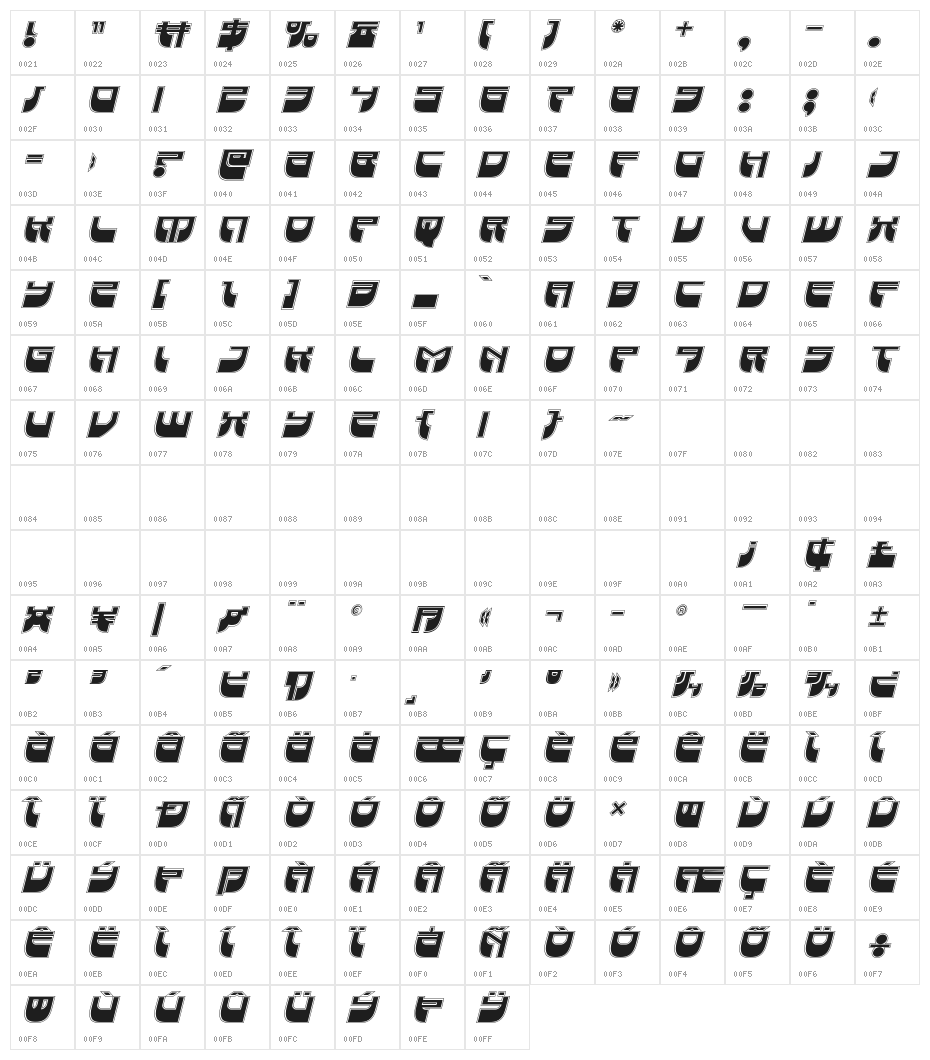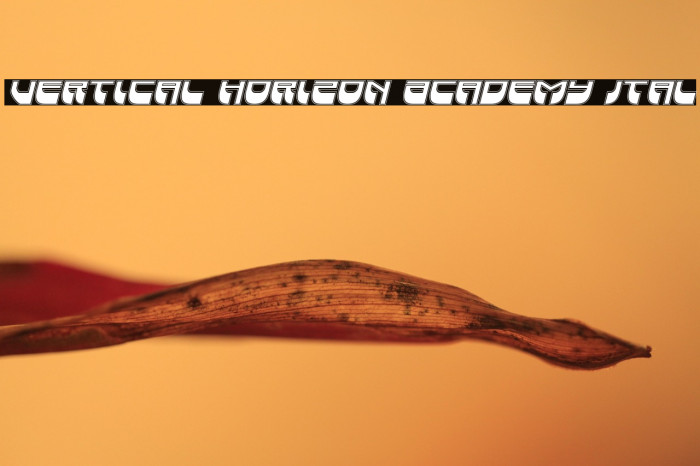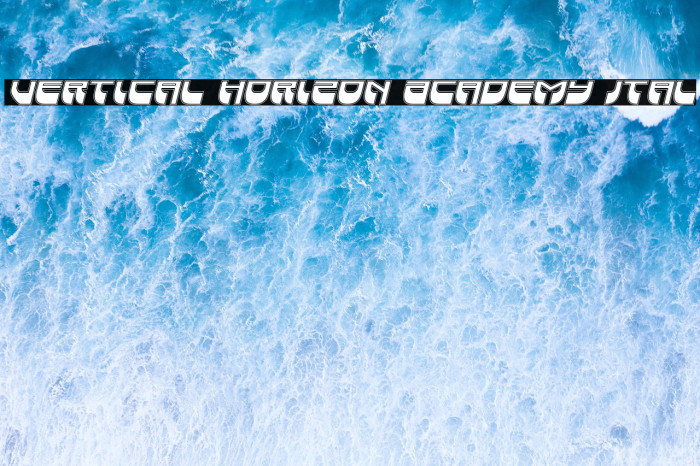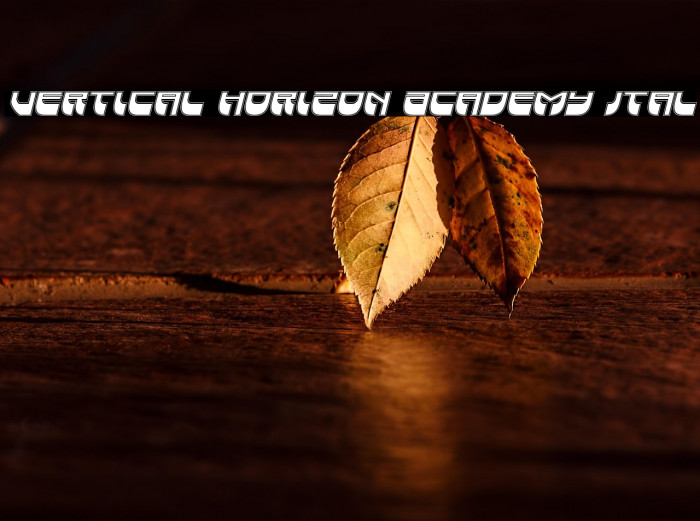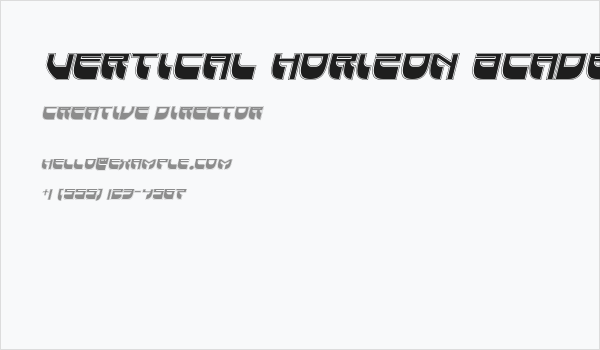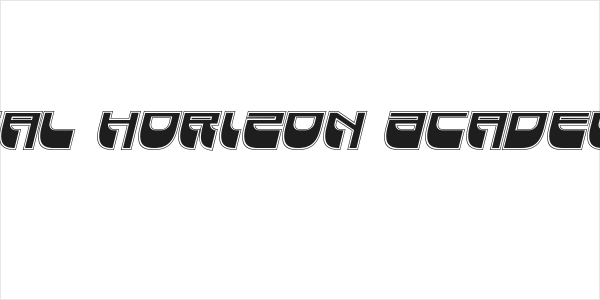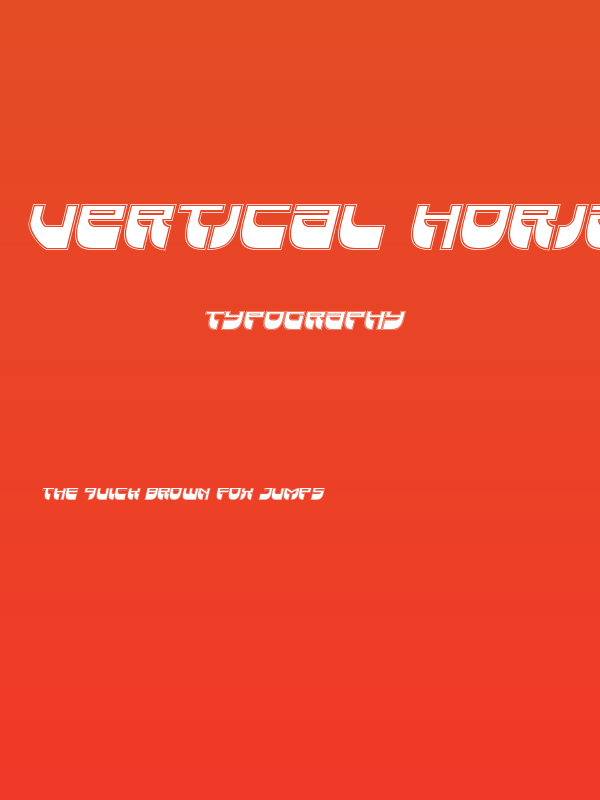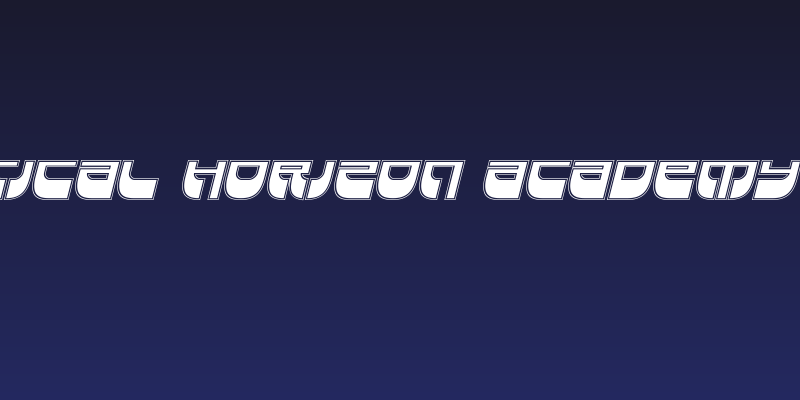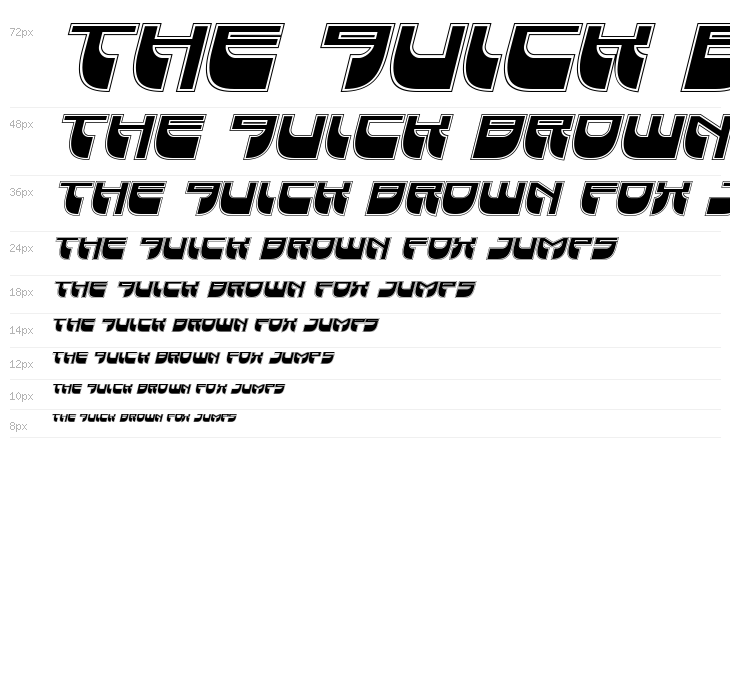
Vertical Horizon Academy Ital Font
Vertical Horizon Academy Ital Description
This font features a bold and futuristic design with a strong presence. The characters are wide and have a distinct geometric style, incorporating sharp angles and smooth curves. The uppercase and lowercase letters maintain a consistent style, with a slight slant that adds a dynamic feel. The numbers and special characters are designed to match the boldness and modernity of the alphabet, making the font suitable for attention-grabbing headlines and logos. The overall appearance is sleek and contemporary, perfect for projects that require a modern and edgy look.
Proposed ProjectsIdeal for sci-fi themed designs, tech company logos, video game titles, and modern advertising campaigns.